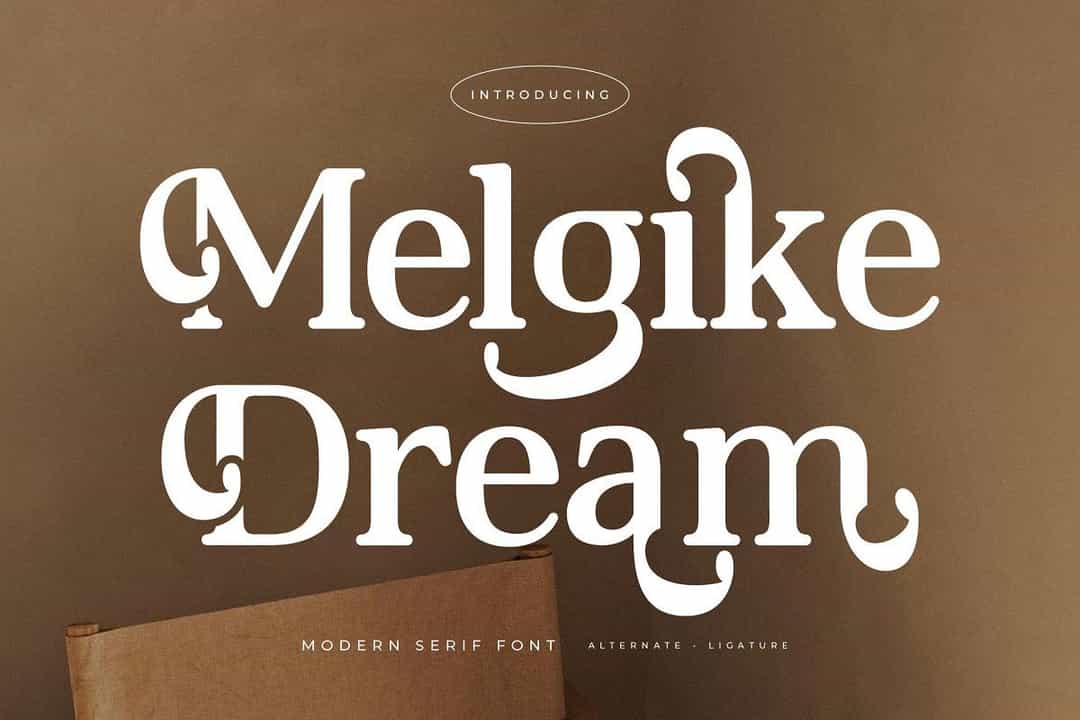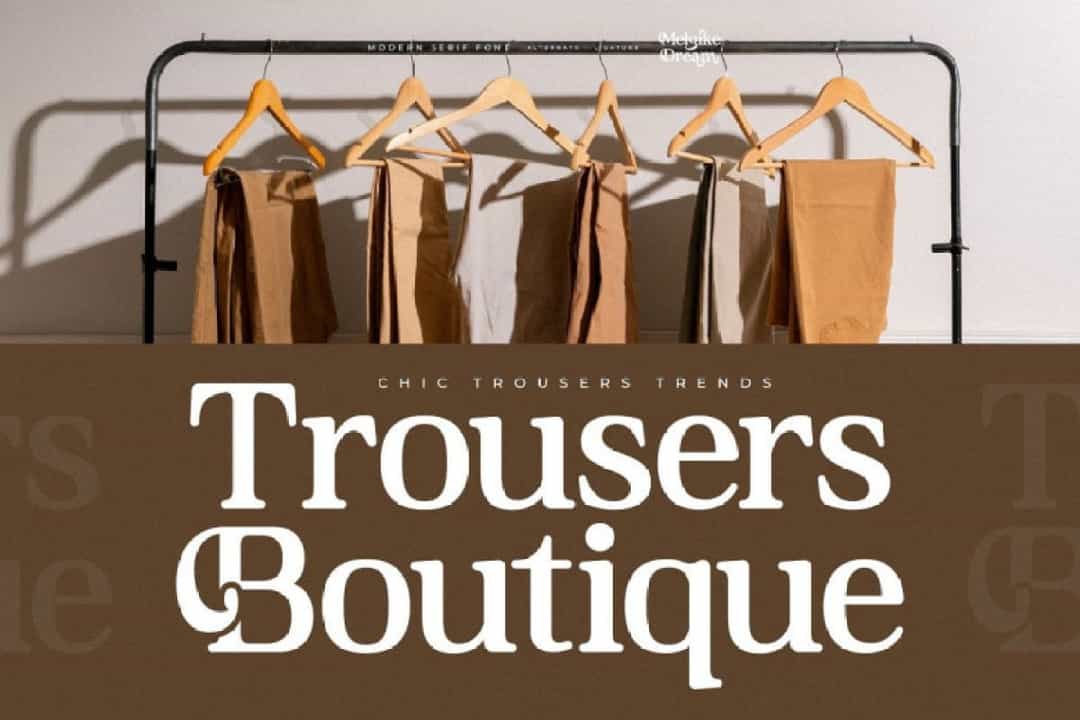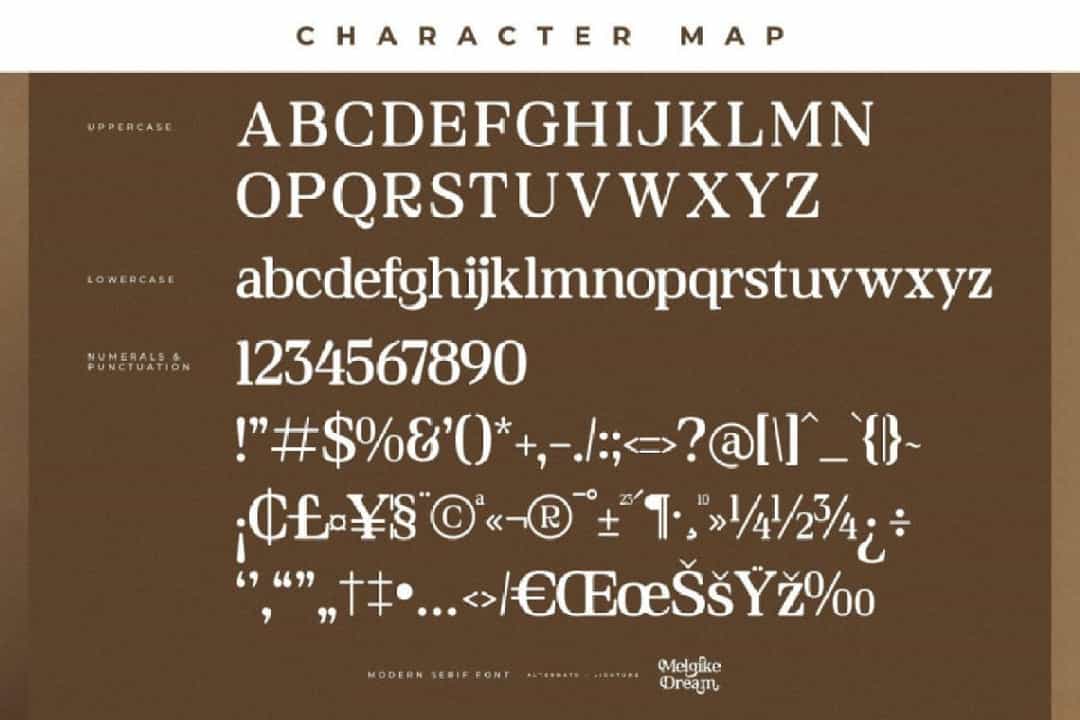
Melgike Dream from Letterena is a contemporary serif typeface ideal for use in logo design, branding design, homeware packaging design for products cups posters quotes T-shirts shopping bags books name cards greeting cards invitation cards labels photo watermark or special events and many other projects that demand luxurious serif style projects.